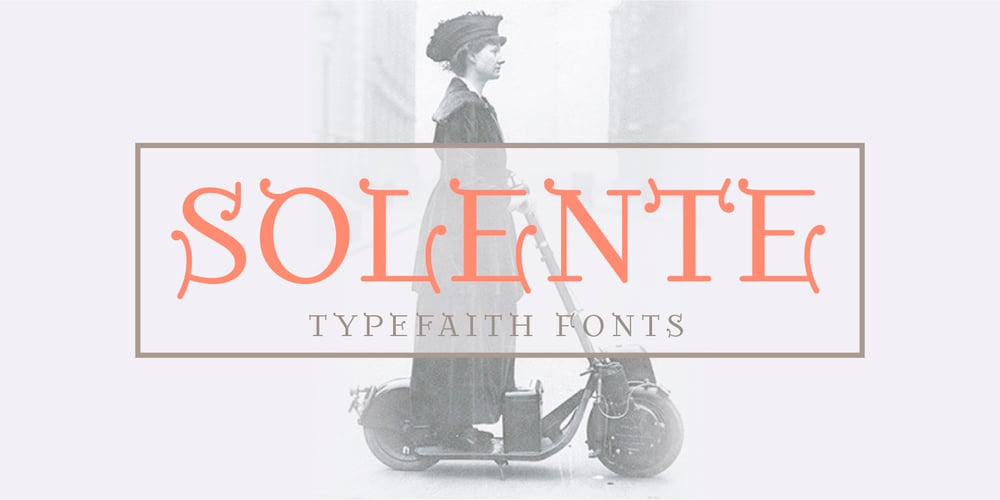
Solente
Solente font
Solente Font Family was designed by Léon Hulst and published by TypeFaith Fonts. Solente contains 1 styles and family package options. Solente is an elegant slab serif font and was inspired from Early 1900’s Art-Deco, Art Nouveau and Jugendstil fonts. Perfect for use as headline or sub-head text in you design. It perfectly represents vintage esthetics in a modern way. The font has stylistic alternates for all capitals and an extra set of ligatures to replace some combinations.